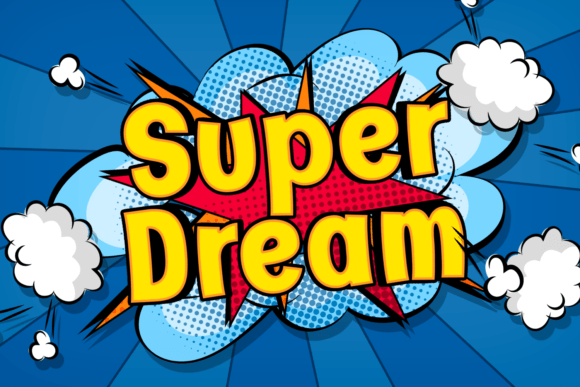
Unleash your creativity with the Super Dream Font, the ultimate display font for vintage enthusiasts. This unique font family, crafted by the ingenious Feri (7NTypes), transports you back to the golden era of retro design. Its bold and chunky characters dance across your screen, evoking a sense of nostalgia and timeless style.
With Super Dream, your projects will radiate an aura of authenticity and charm. Its wide, blocky letters command attention, making each word pop off the page. Whether you're crafting posters, headlines, magazine covers, or product packaging, this font will add an eye-catching touch that leaves a lasting impression.
Explore the endless possibilities of Super Dream and amplify your designs. From posters that demand attention to flyers that ignite curiosity, this font brings a touch of retro magic to every project. Its bold presence is perfect for making statements, capturing imaginations, and leaving your audience spellbound.
Don't settle for ordinary fonts. Embrace the allure of Super Dream and elevate your designs to new heights. Its vintage charm, combined with its modern sensibility, creates a timeless aesthetic that resonates with audiences of all ages. Dive into the world of Super Dream and let your creativity soar.